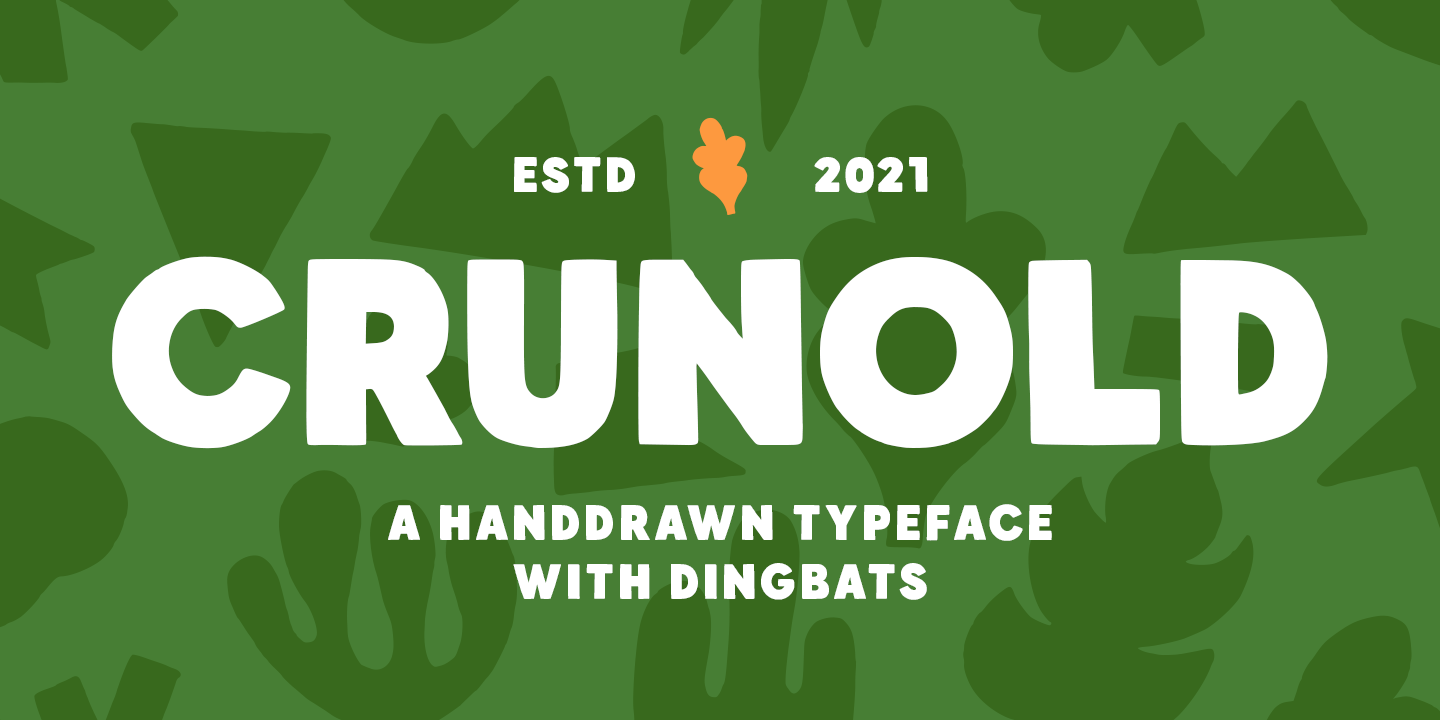
Crunold Font is perfect for vintage cereal packaging, retro snack food brands, classic breakfast diners, nostalgic candy shops, old-school bakery signage, traditional granola companies, artisan cracker producers, heritage food museums, vintage advertising reproductions, classic confectionery branding, rustic farm markets, and authentic comfort food communications.
This font is exciting because it captures the satisfying crunch and nostalgic charm of classic comfort foods, featuring delightfully textured letterforms that crackle with the same irresistible appeal and wholesome satisfaction found in perfectly toasted cereals, crispy crackers, and the kind of satisfying snacks that make the most comforting sounds when you bite into them, evoking memories of childhood breakfasts and simpler times when food packaging told honest stories about real ingredients. The charmingly crafted character design embodies both the satisfying crunch of quality texture and the old-fashioned reliability of traditional food production, creating typography that feels both appetizingly appealing and comfortingly familiar. Each letter radiates the kind of wholesome crunchiness and nostalgic charm that transforms ordinary text into appetizing invitations to experience the simple pleasure of satisfying comfort foods.
The Crunold Font family includes regular and bold weights with complete character sets featuring food-inspired numerals, appetizing punctuation marks, and decorative elements reminiscent of cereal textures, vintage food packaging, breakfast motifs, and classic snack food graphics. Advanced versions may offer additional stylistic variants with enhanced crunchy effects, alternate characters that create satisfying textural connections, and wholesome ornaments that celebrate the heritage of comfort food traditions and nostalgic snack culture.
Whether you're developing comfort food branding, creating nostalgic food marketing, or designing vintage-inspired snack packaging, Crunold Font Free Download provides the satisfying appeal and nostalgic charm your project needs to connect with audiences who appreciate the simple pleasure of comfort foods and the wholesome satisfaction that comes from quality ingredients and traditional food craftsmanship. This typeface transforms ordinary text into appetizing expressions that celebrate both the satisfying crunch of quality textures and the comforting reliability of traditional food heritage. The font's wholesome character makes it perfect for brands that value food tradition and authentic comfort. Comfort food enthusiasts and nostalgic food marketers will appreciate how this font brings authentic crunchy satisfaction to their work with its genuinely appetizing and comfortingly nostalgic character that makes every bite count.